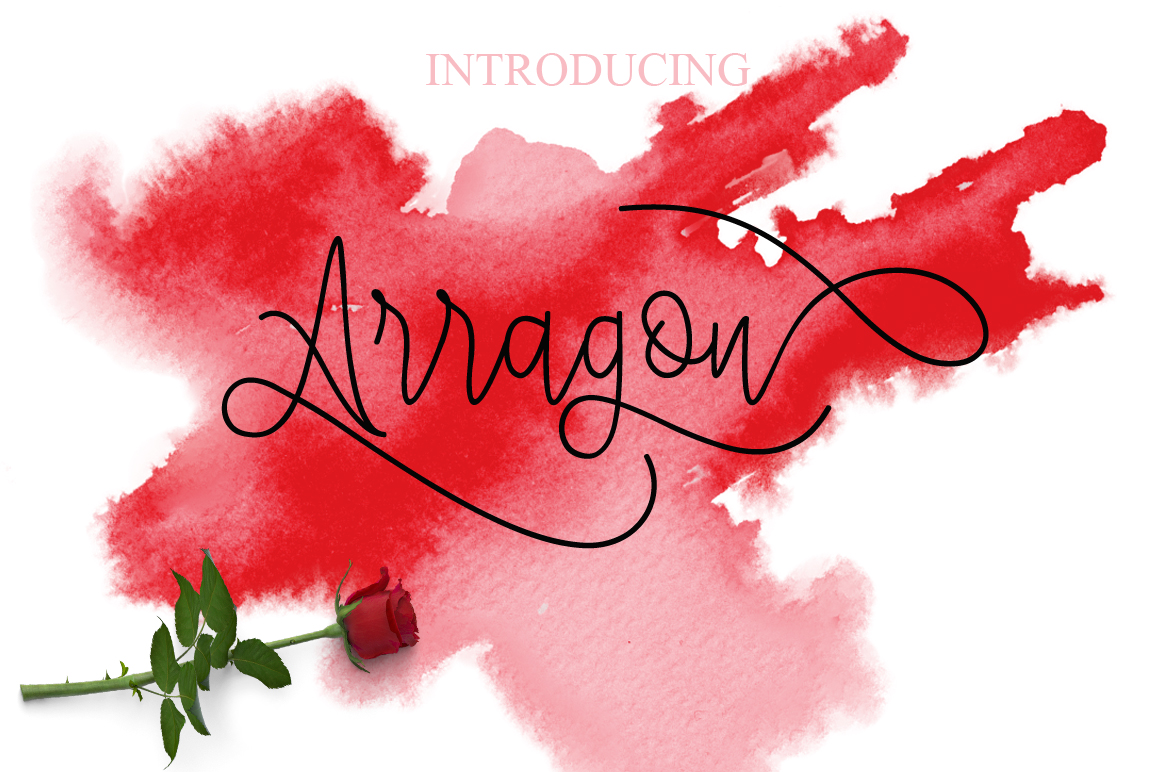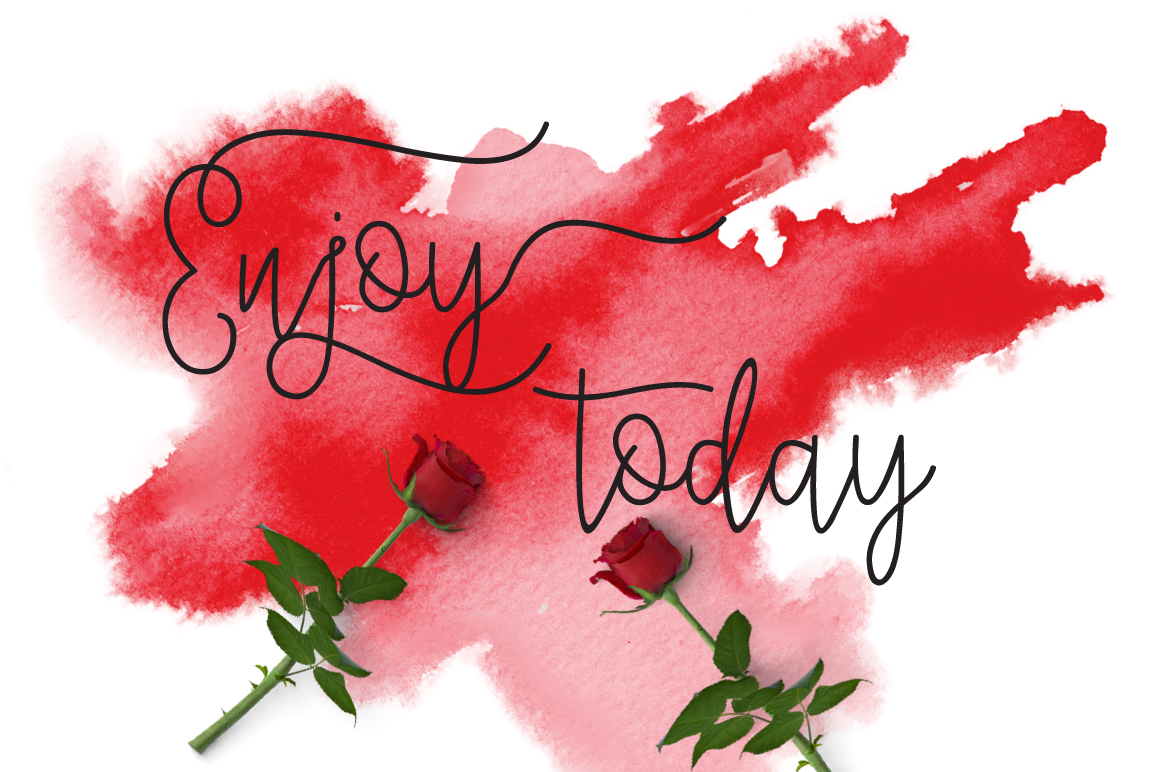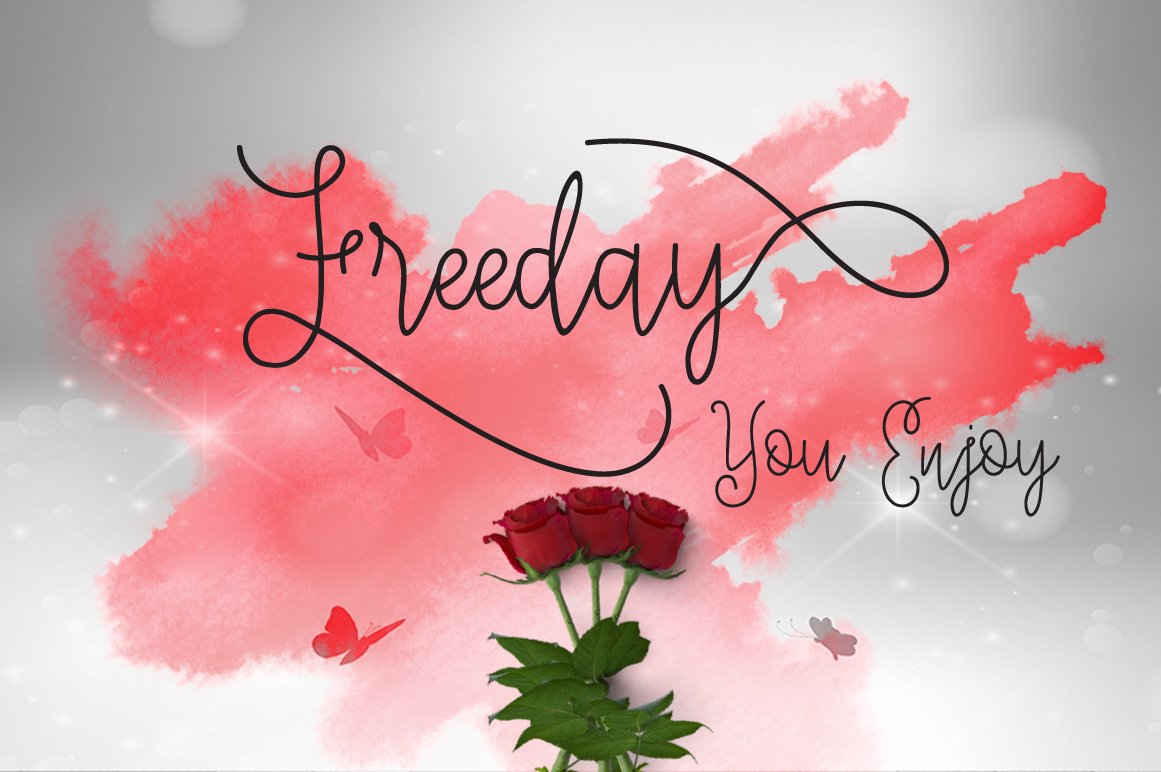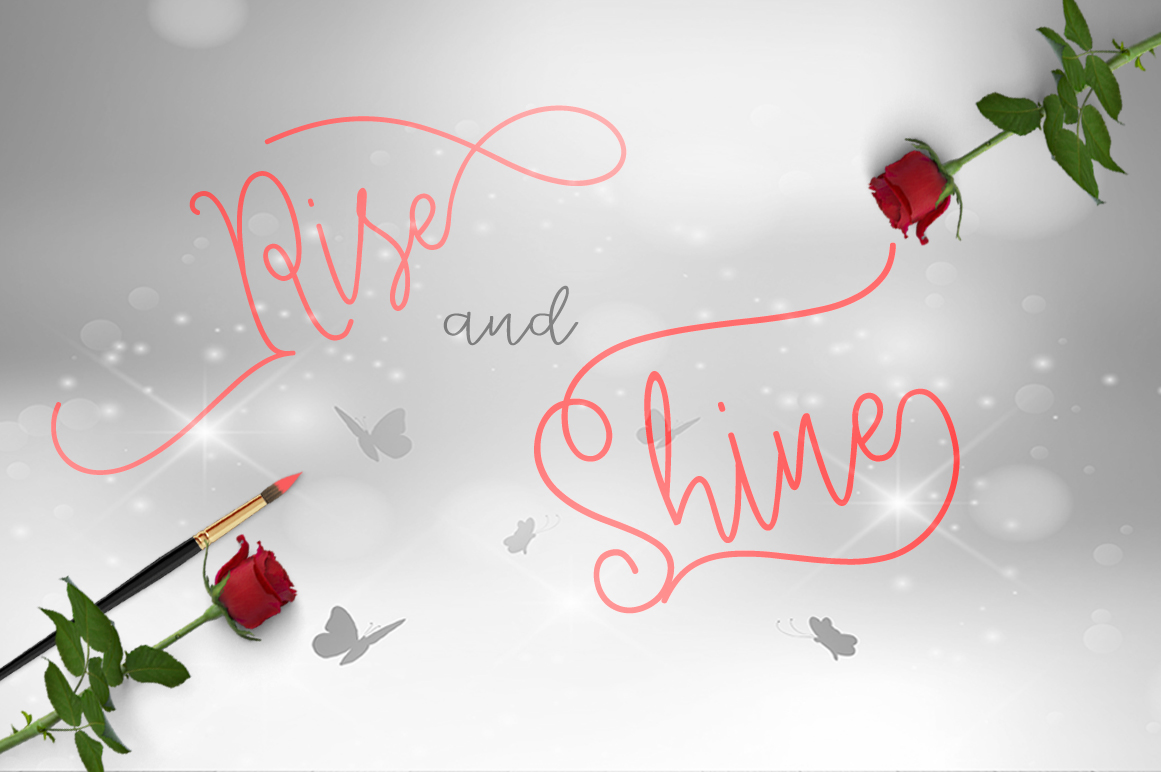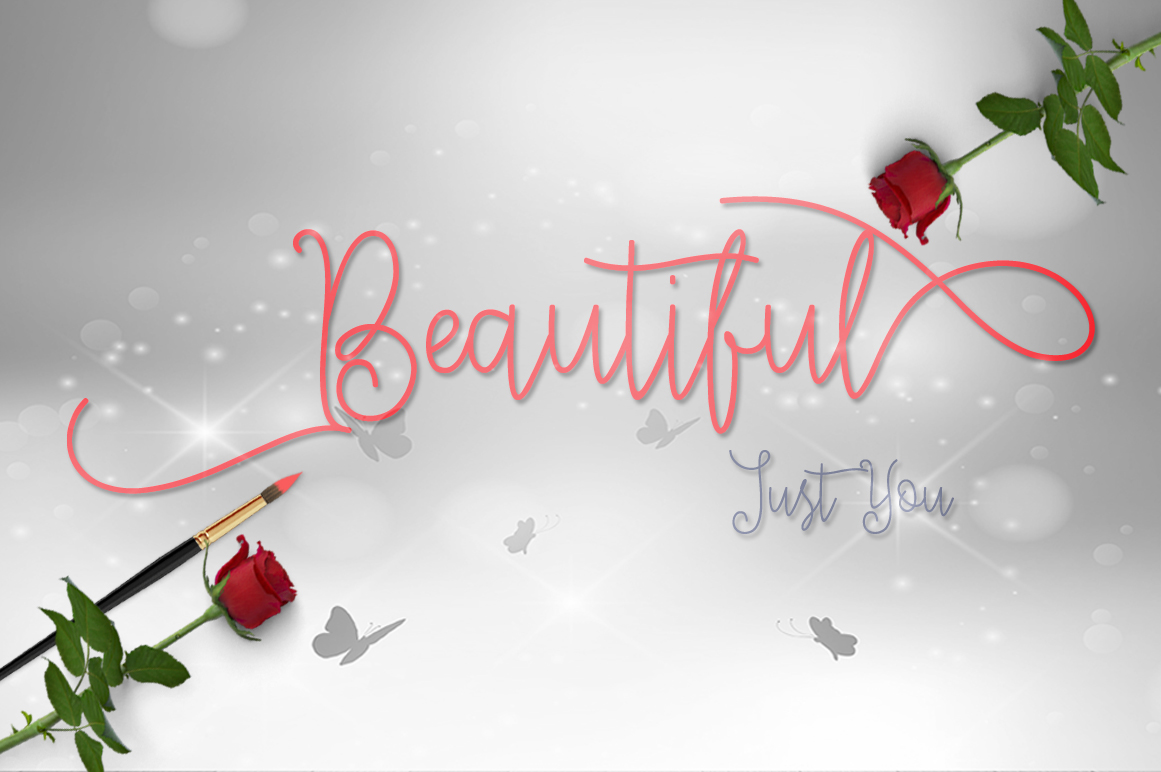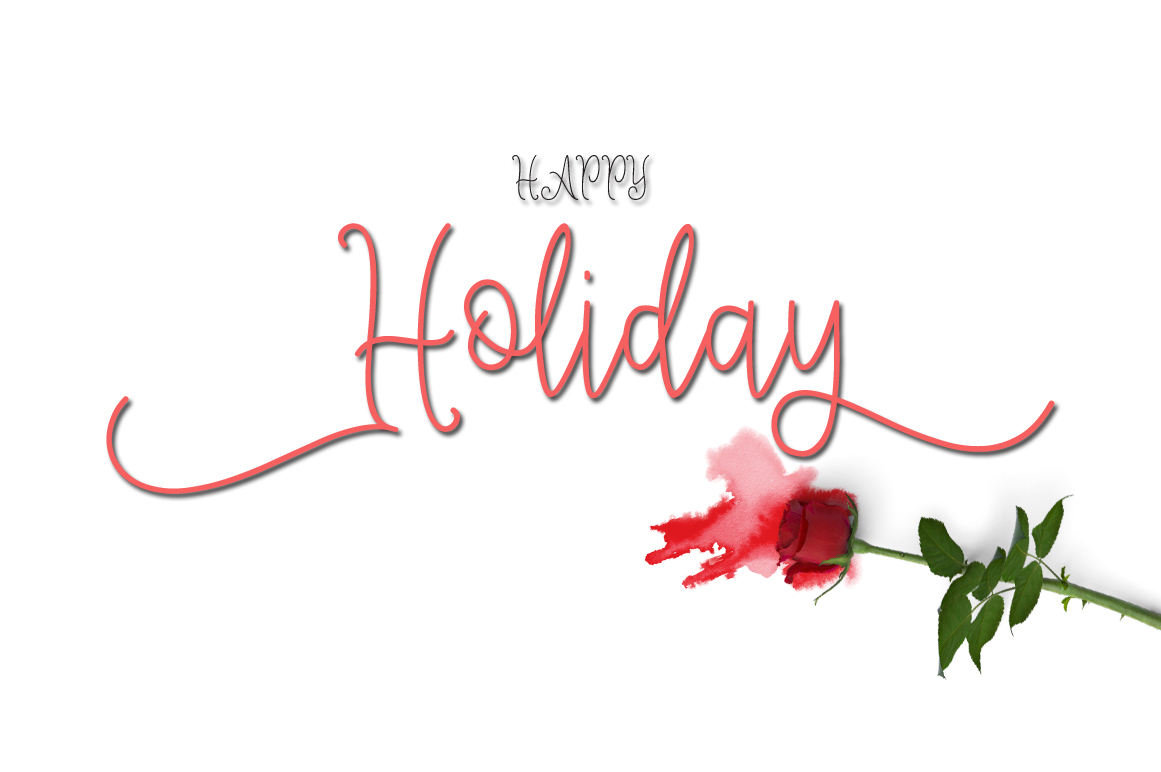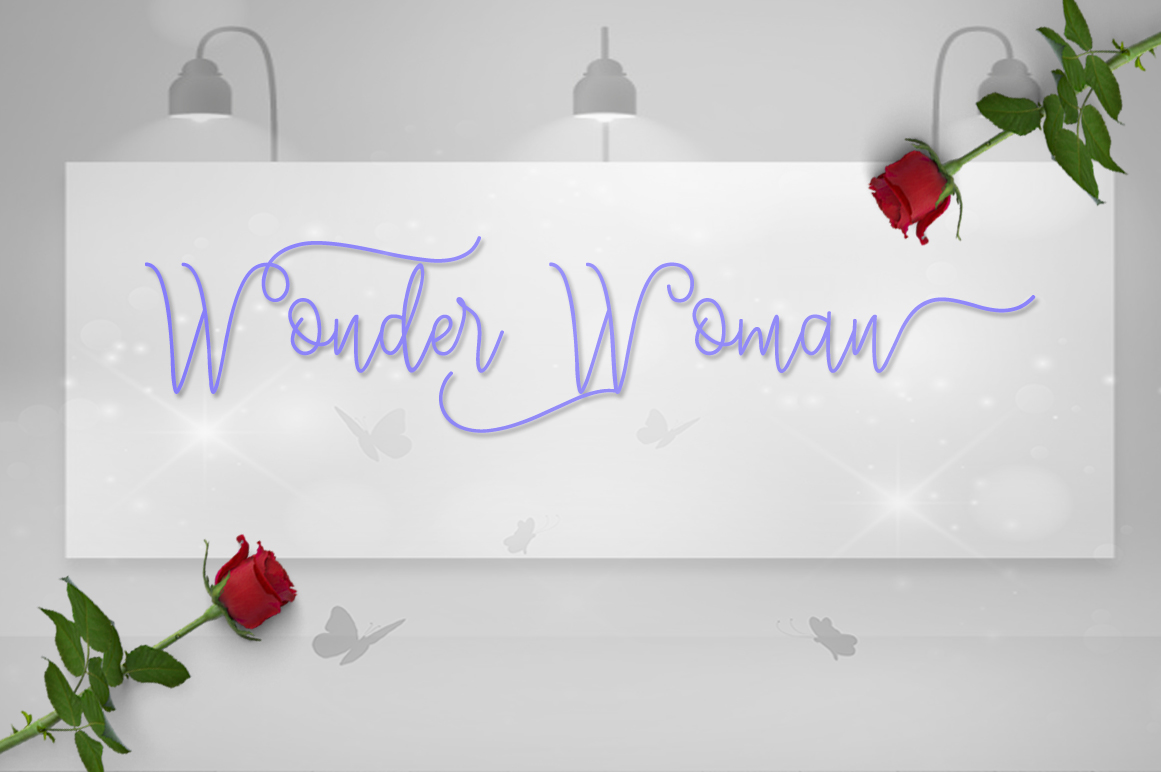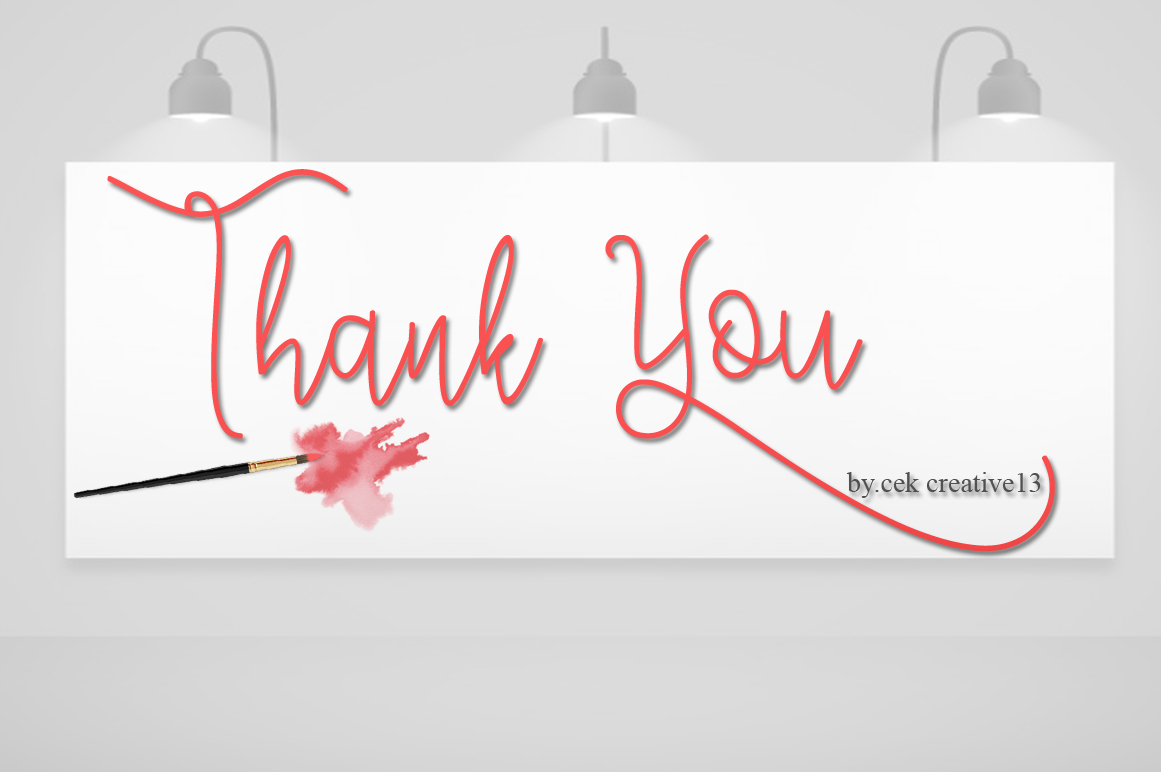
HomeScript FontsArragon Font Script Fonts Arragon Font FacebookXPinterestWhatsApp Arragon Font Poster 2 Arragon Font Poster 3 Arragon Font Poster 4 Arragon Font Poster 5 Arragon Font Poster 6 Arragon Font Poster 7 Arragon Font Poster 8 About Arragon Font Arragon is a modern calligraphy font created by Check Creative. This font features long swashes. DOWNLOAD NOW People also explored Story Heart Font Alien Font Xmas Tree Font Monalisa Font Tomket Boys Font Tasty Bready Font Amelia Font Fiallio Font Kwoto Thin Font 334 0 TagsArragon Font Previous articleFeronika FontNext articleMissgivelove Font LEAVE A REPLY Cancel reply Comment: Please enter your comment! Name:* Please enter your name here Email:* You have entered an incorrect email address! Please enter your email address here Website: Save my name, email, and website in this browser for the next time I comment. Personal Use Free Jurnal Personal Use Free Read more about this font Messy Personal Use Free Read more about this font My Ugly Handwritting Personal Use Free Read more about this font Harmony Personal Use Free Read more about this font BLOG How to Install and Use Fonts on Windows, macOS, and Web Projects How to Install and Use Fonts on Windows, macOS, and Web Projects Fonts are a crucial part of design and branding. Whether you’re designing a... The 10 Best Handwriting Fonts to Add Personality to Your Designs Transform Your Website: Elevate Your Typography with 7 Best Web Font Generators Exploring Font Trends